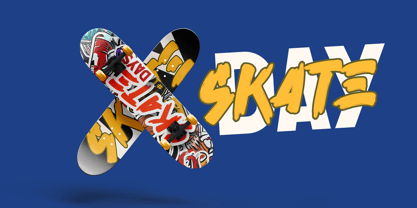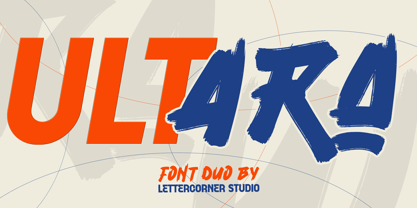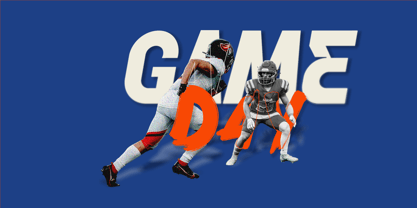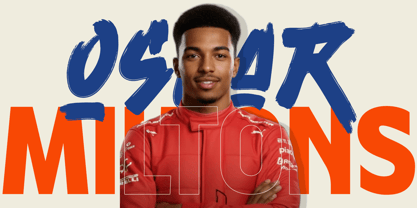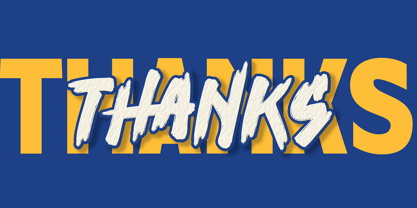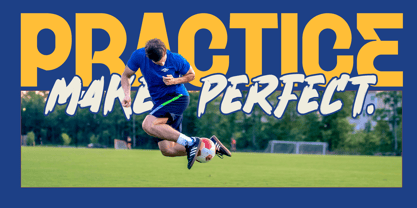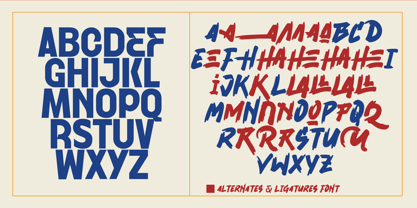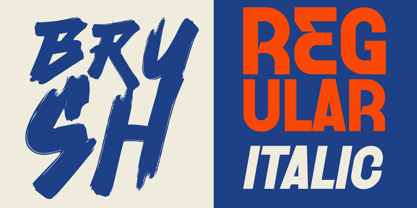
Ultara
by Mevstory Studio
The Ultara Font Family was designed by Muhammad Afif Ersya and published by Mevstory Studio. Ultara contains 3 styles and family package options. More about this family
ULTARA – Bold Display Font Duo ULTARA is inspired by the idea of “Ultra” — a concept that represents going beyond limits, pushing boundaries, and maximizing impact. The name reflects strength, speed, and modern energy, which are deeply embedded in the visual character of the typeface. ULTARA is designed for creators who want their designs to stand out with confidence and intensity. ULTARA is a powerful display font duo that combines clean, structured sans serif letterforms with expressive, hand-painted brush strokes. This combination creates a versatile typographic system that balances precision and emotion, making it suitable for a wide range of contemporary design needs. Font Styles Included ULTARA Regular (Sans Serif) A bold sans serif typeface with strong geometric shapes and excellent readability. ULTARA Regular provides a solid foundation for headlines, logos, posters, and branding projects that require a modern and confident appearance. ULTARA Italic (Sans Serif) A dynamic italic version of the regular style, designed to convey movement, speed, and emphasis. Perfect for highlights, subheadings, and layouts that need an energetic typographic accent while maintaining clarity. ULTARA Brush An expressive brush font featuring rough textures and natural strokes that bring a raw, energetic feel. Equipped with alternates and ligatures, ULTARA Brush is ideal for keywords, overlays, and bold statements that demand attention. Ideal For Sports & action posters Branding & logo design Apparel & streetwear Social media graphics Esports & gaming visuals Skateboard & merchandise design Editorial headlines & promotional banners
Designers: Muhammad Afif Ersya
Foundry: Mevstory Studio